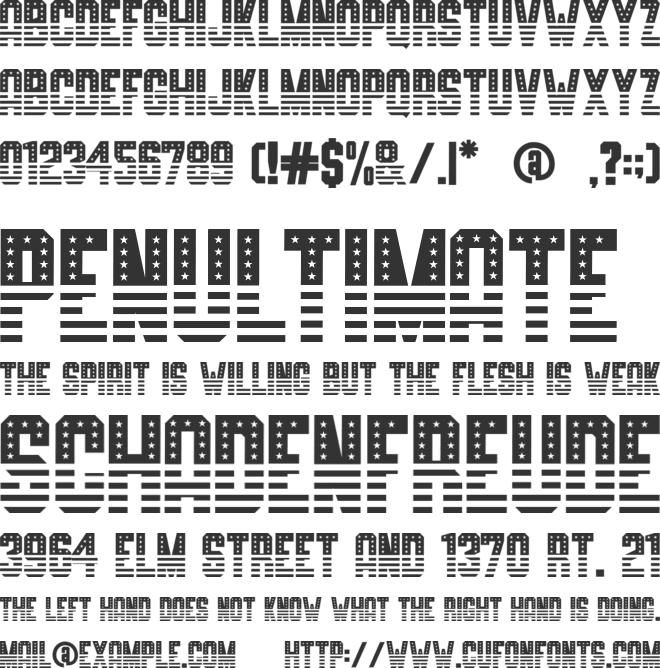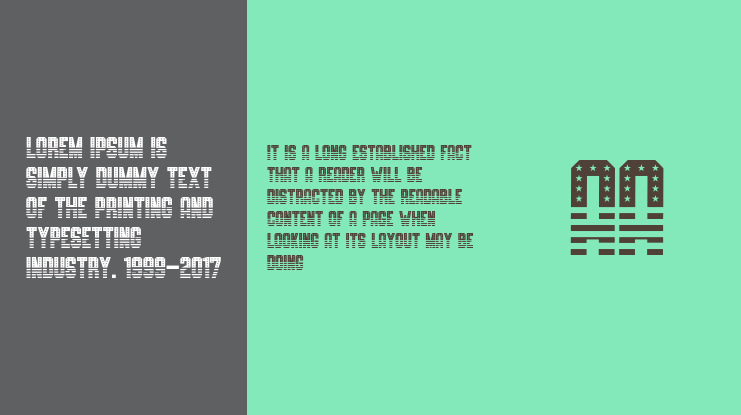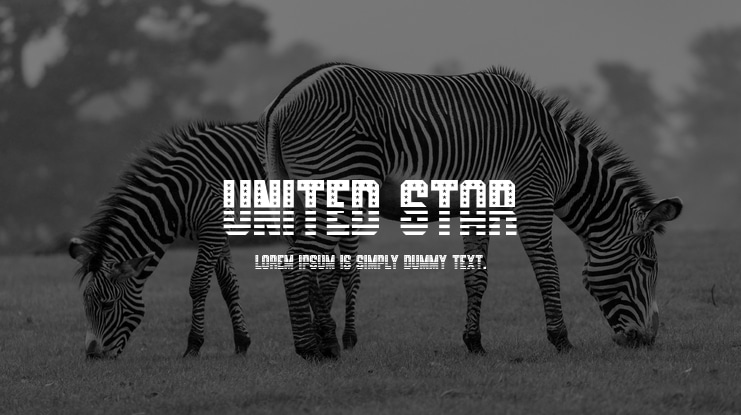
UNITED STAR Font
UNITED STAR is a unique and outstanding display font.
It's Stars and Stripes font.
Brighten up all your 4th of July’s crafting projects with this unique typeface!
It will elevate a wide range of design projects to the highest level, be it branding, headings, wedding designs, invitations, signatures, logos, labels, and much more!
Use it for any project that requires an American look and feel! It brings cute extras for your 4th of July crafting projects!
Fall in love with its incredibly versatile style and use it to create spectacular designs!
Use this font for any crafting project that requires a personalized look!